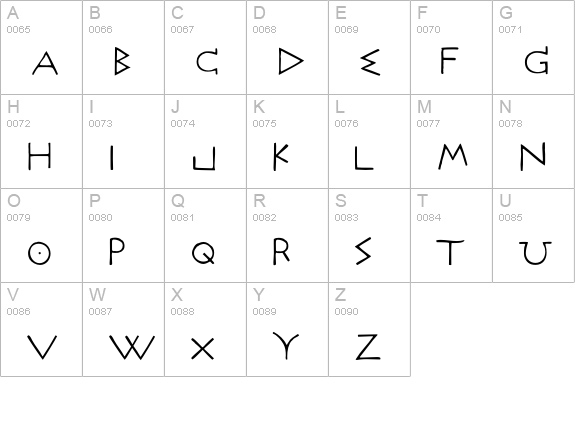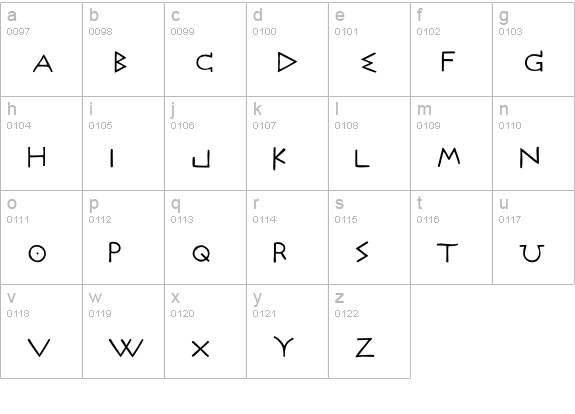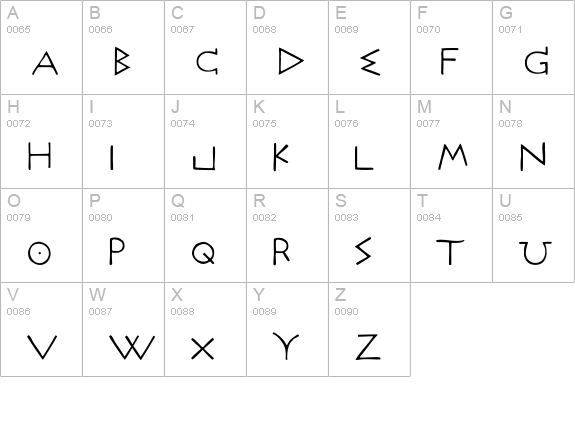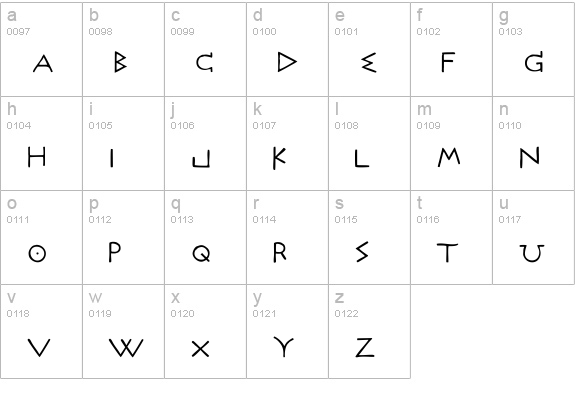
AcropolisNow Font Details
AcropolisNow font exudes a timeless elegance with its classic and sophisticated design. This versatile typeface strikes the perfect balance between traditional and contemporary styles, making it suitable for a wide range of projects. Its clean lines and graceful curves give any text a touch of refinement and sophistication. What sets AcropolisNow font apart is not only its impeccable design but also its accessibility. This stunning font is available for free download at FontsMarket.com, allowing designers, creatives, and enthusiasts alike to easily incorporate its beauty into their work. Whether you're designing a logo, creating invitations, or crafting a website, AcropolisNow font is sure to elevate your project to new heights. With its seamless legibility and timeless charm, AcropolisNow font is a must-have addition to any font collection. Download it for free today and let its classic beauty inspire your next creative endeavor.